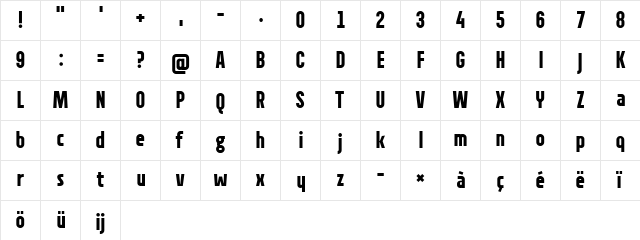
IJskelder Whiteboard
| Foundry | Peter Van Lancker |
| Designer | Peter Van Lancker |
Design Context for IJskelder Typeface
IJskelder offers clean, dependable letterforms without strong stylistic allegiance, making it a practical choice for designers who need flexibility.